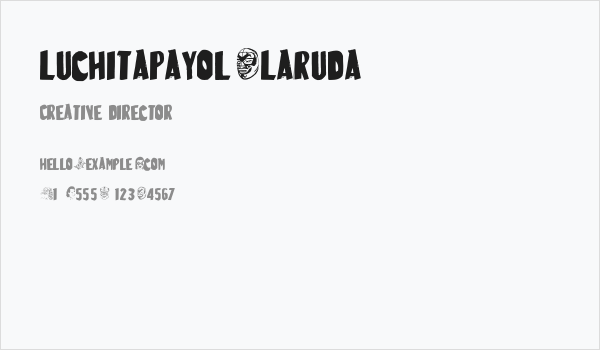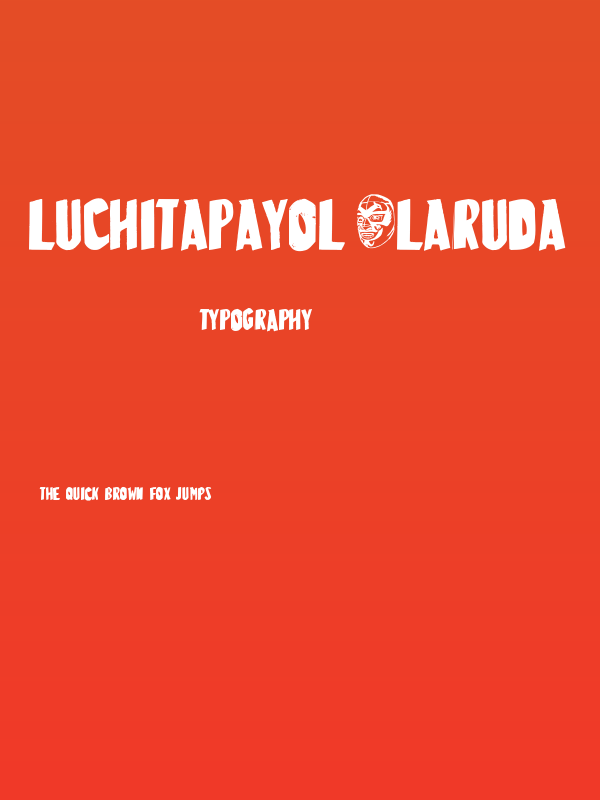
LuchitaPayol-LaRuda Font
LuchitaPayol-LaRuda Description
This font features a bold and dynamic style, characterized by its thick, uneven strokes and a slightly distressed appearance. The uppercase letters are prominent and assertive, while the lowercase letters maintain a consistent style with a touch of playfulness. The numbers are equally bold, ensuring they stand out in any design. The overall look is reminiscent of hand-painted signs, giving it a raw and energetic feel. This font is ideal for projects that require a strong visual impact and a sense of movement or excitement.
| Proposed Projects | Perfect for posters, event flyers, album covers, and branding that requires a bold statement. |